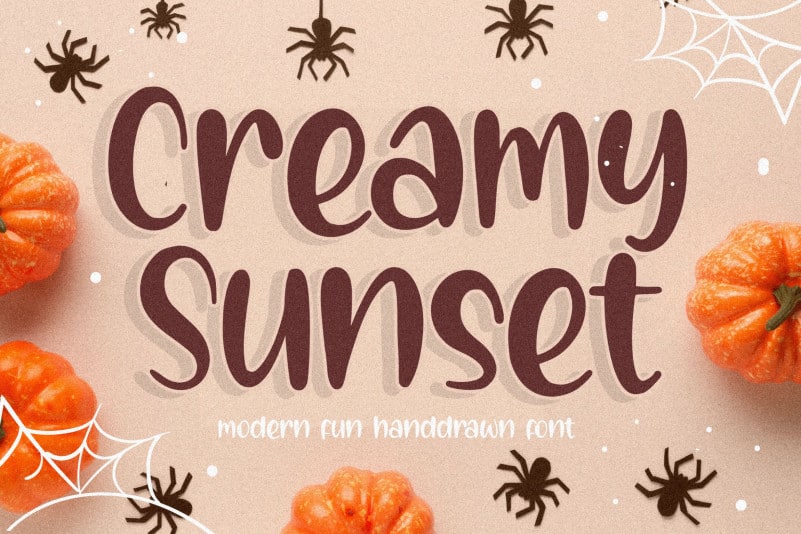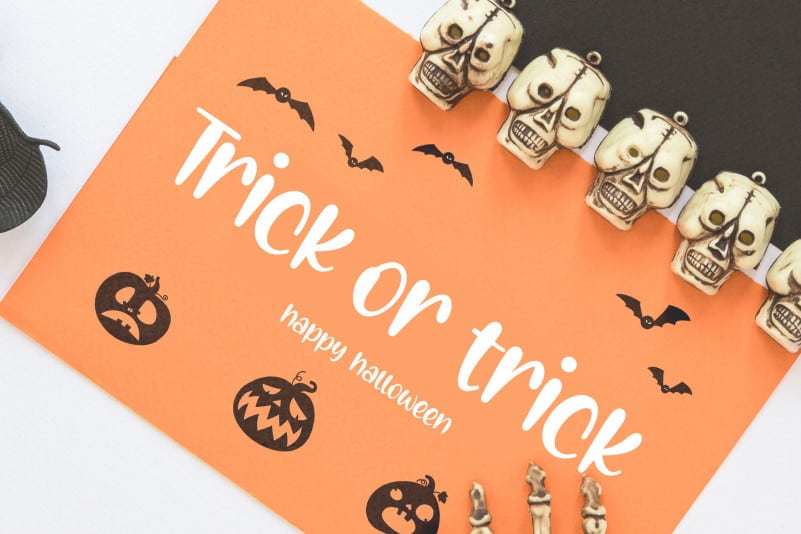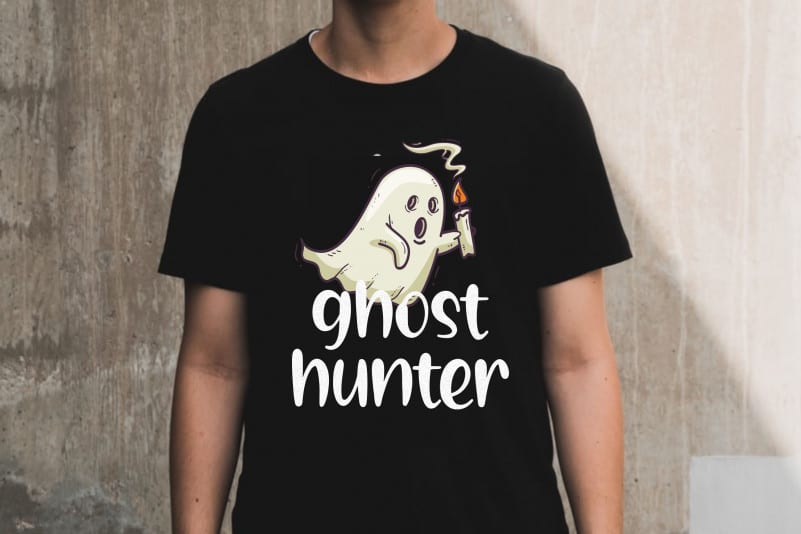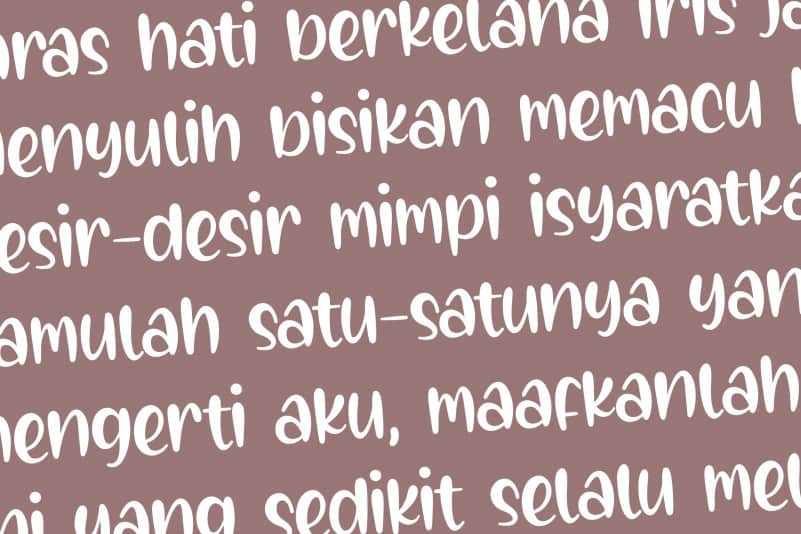
Proudly Present, Creamy Sunset Modern Fun Handdrawn Font.
Creamy Sunset is a Modern Fun Handdrawn Font.
Creamy Sunset is perfect for product packaging, branding project, megazine, social media, wedding, or just used to express words above the background.